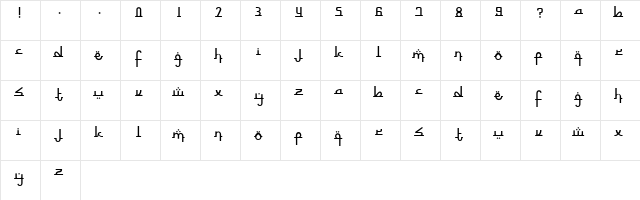
Nurkholis Regular
Design Context for Nurkholis Typeface
Nurkholis is a composed and adaptable typeface that performs quietly and consistently across a wide range of design contexts.